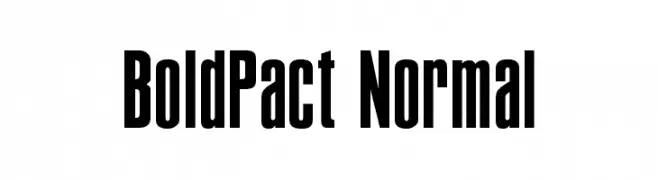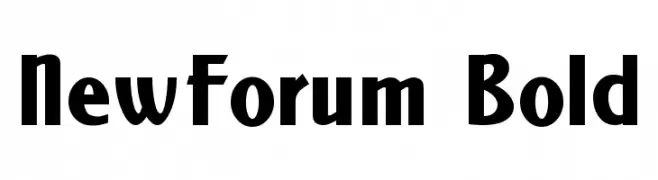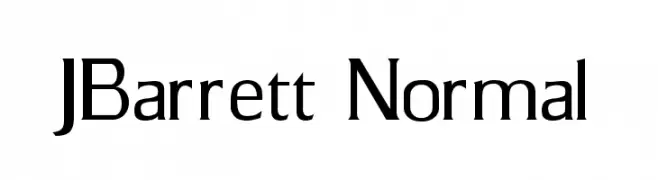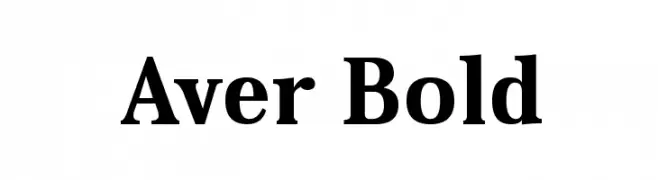
A bold, rounded font with a playful and friendly appearance.
A bold, high-contrast font with a dynamic and decorative style.
A bold, condensed font with strong vertical lines and minimal contrast.
A bold, dynamic font with a strong, slightly condensed style.
A sleek, modern font with an Art Deco influence, featuring elongated, narrow characters and high contrast.
A bold, calligraphic font with dynamic strokes and a handwritten feel.
A bold, playful script font with a handwritten feel.
A modern, sophisticated font with clean lines and balanced proportions.
A bold, italic serif font with strong, dynamic strokes.
A bold serif font with strong, classic features and excellent readability.